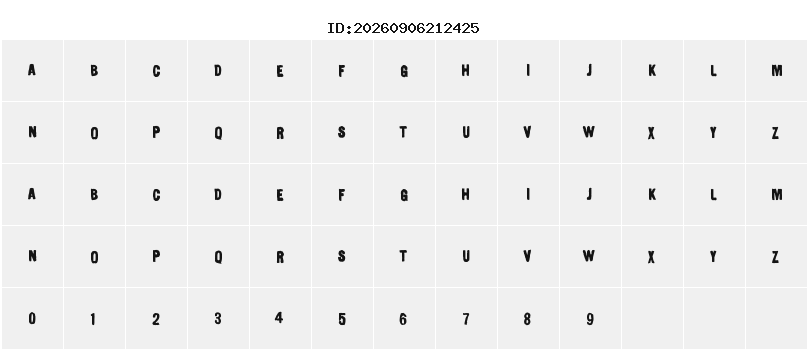
UrbanPaints Preview
• Font Name: UrbanPaints
• Full Font Name: UrbanPaints
• Version: Version 1.00 December 9, 2014, initial release
• Designer: Xerographer Fonts Max Infeld
• Manufacturer: Xerographer Fonts
• Description: Made at Xerographer Studios in Portland,OR
About UrbanPaints.ttf
UrbanPaints.ttf is a modern, elegant sans-serif font designed for ultimate readability and visual harmony. Perfect for branding, headlines, web design, and print materials.